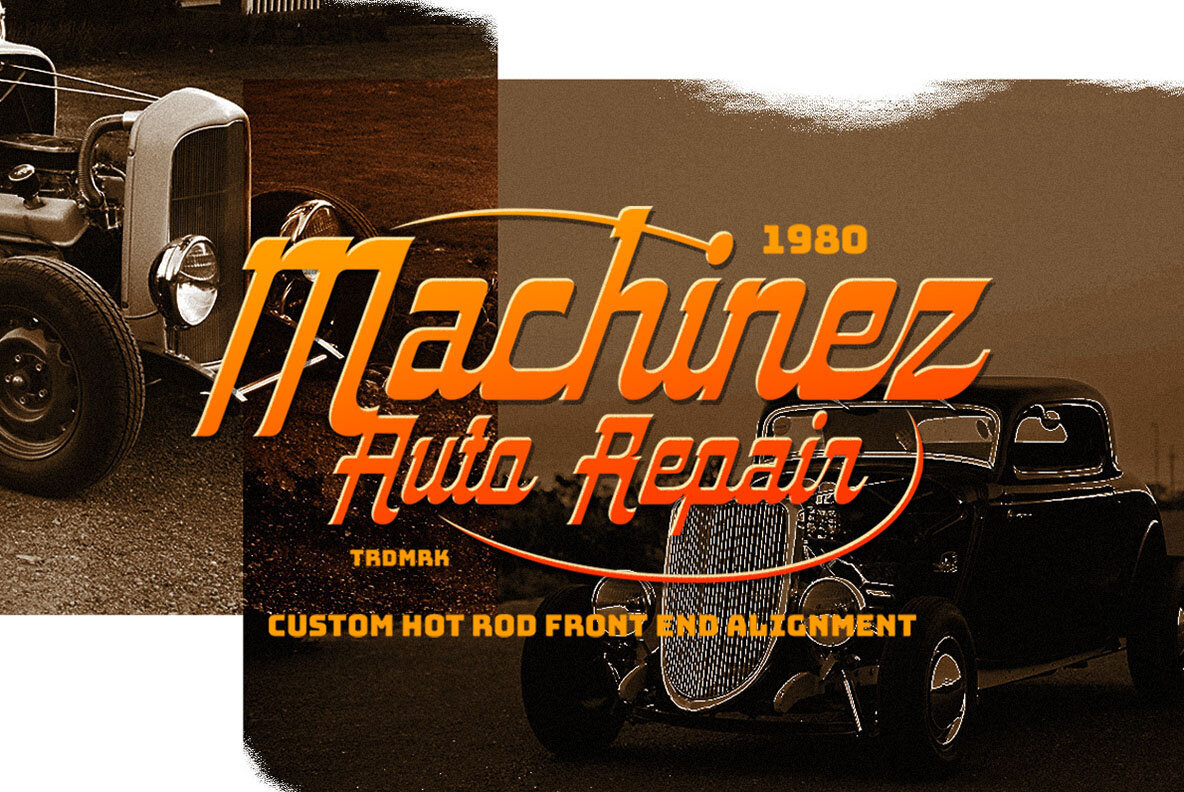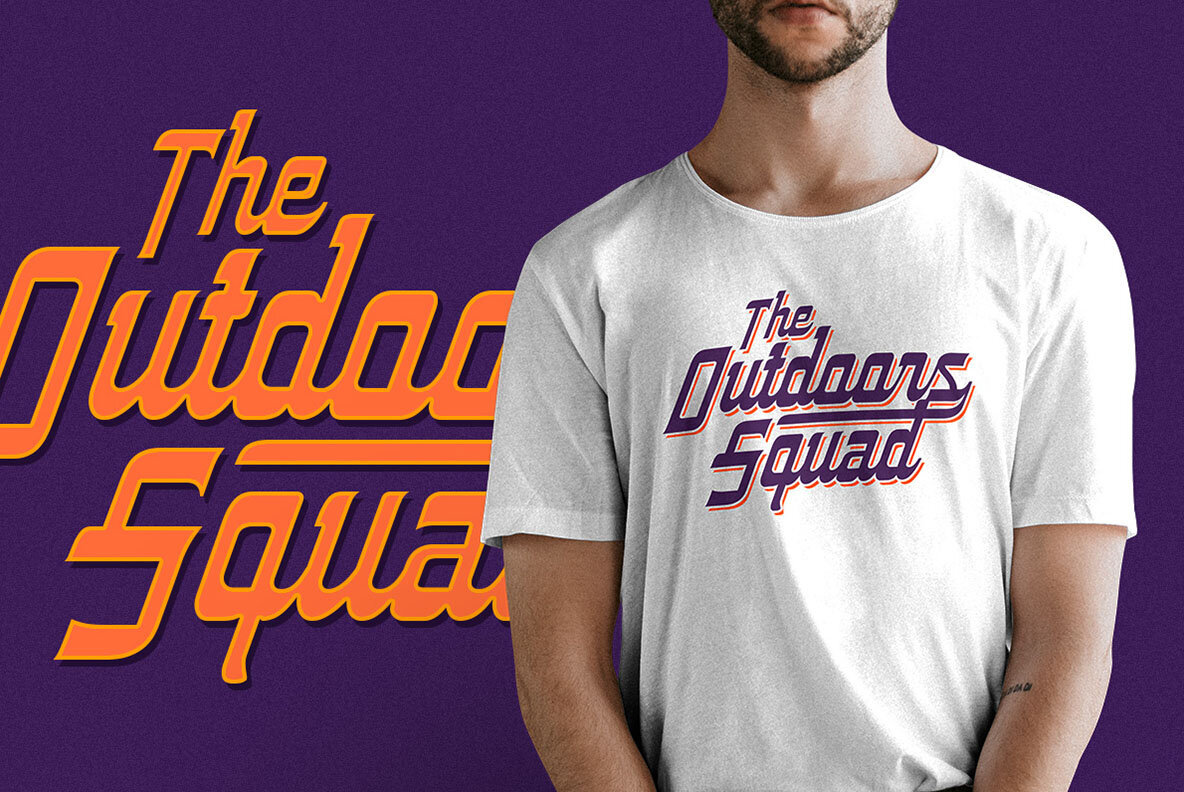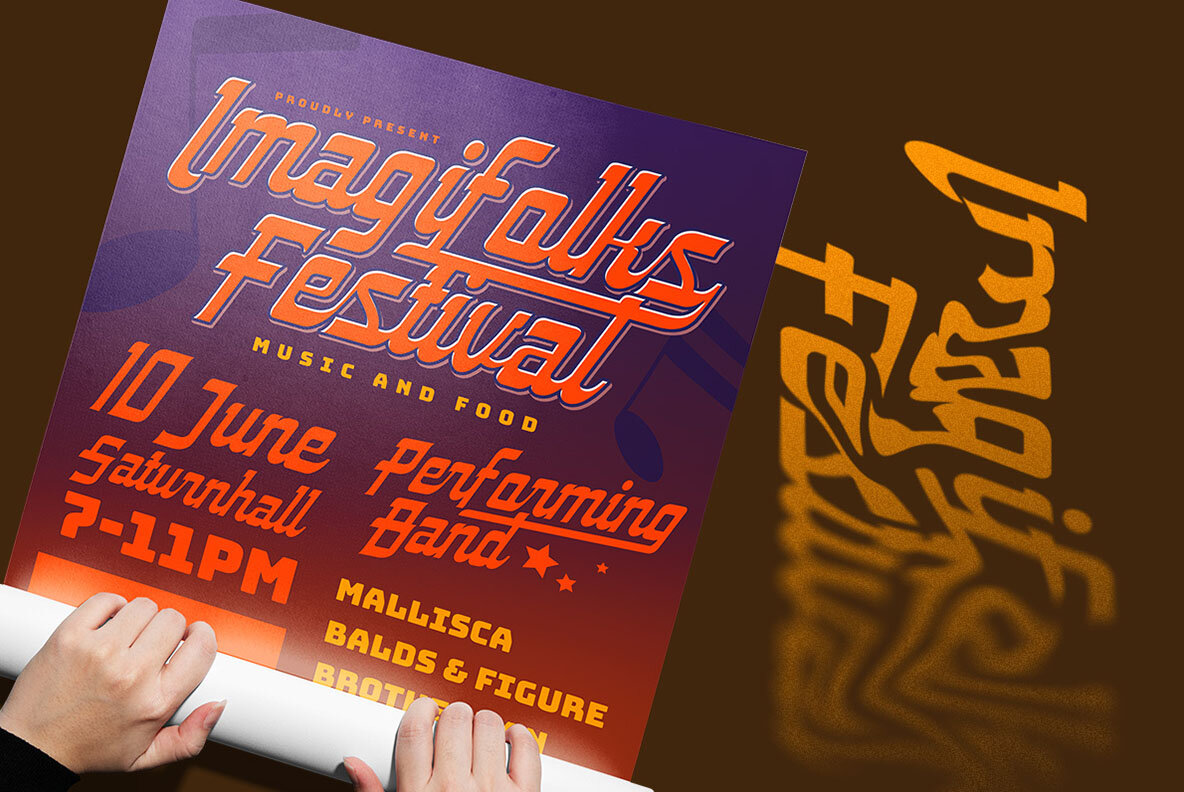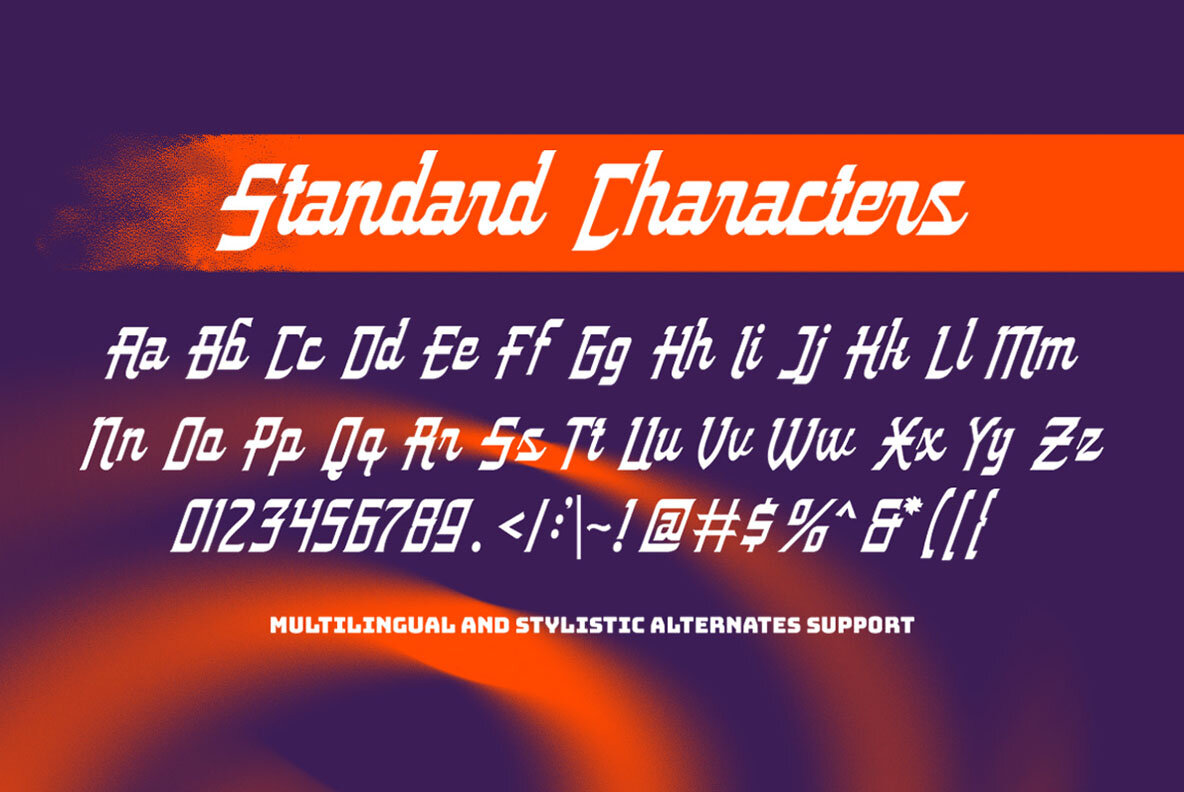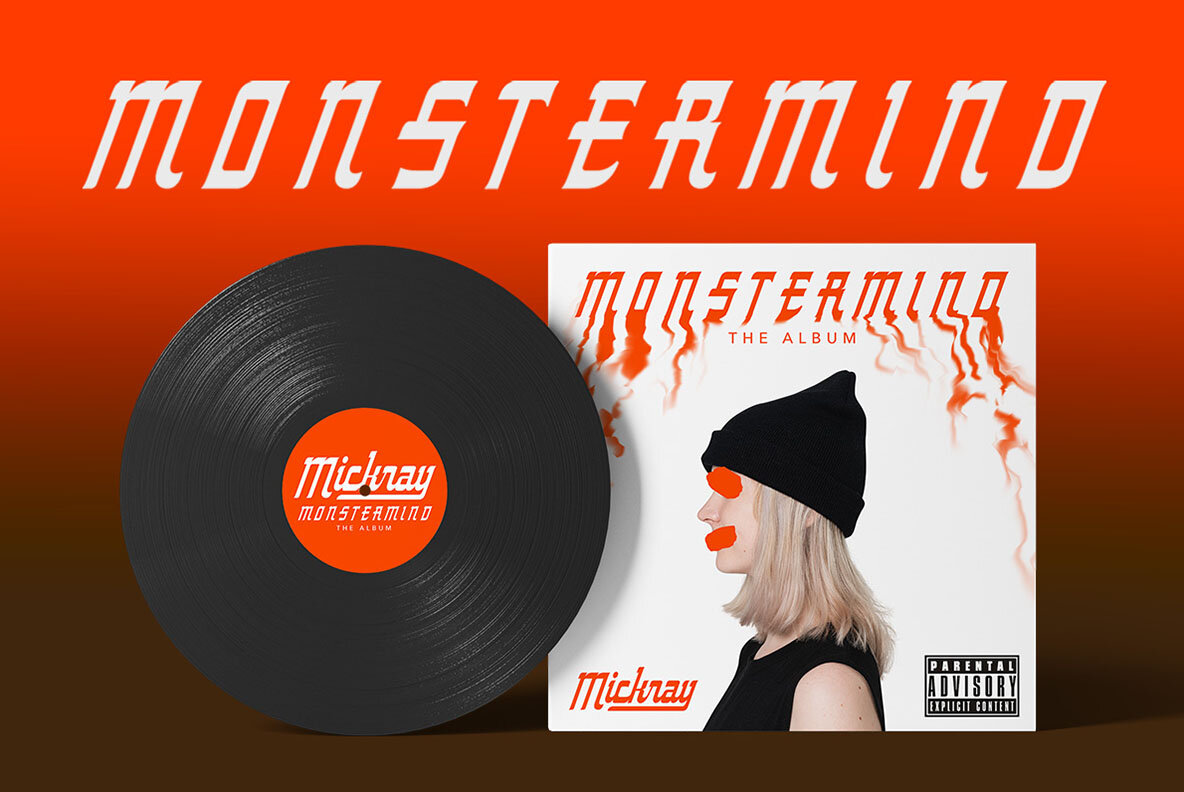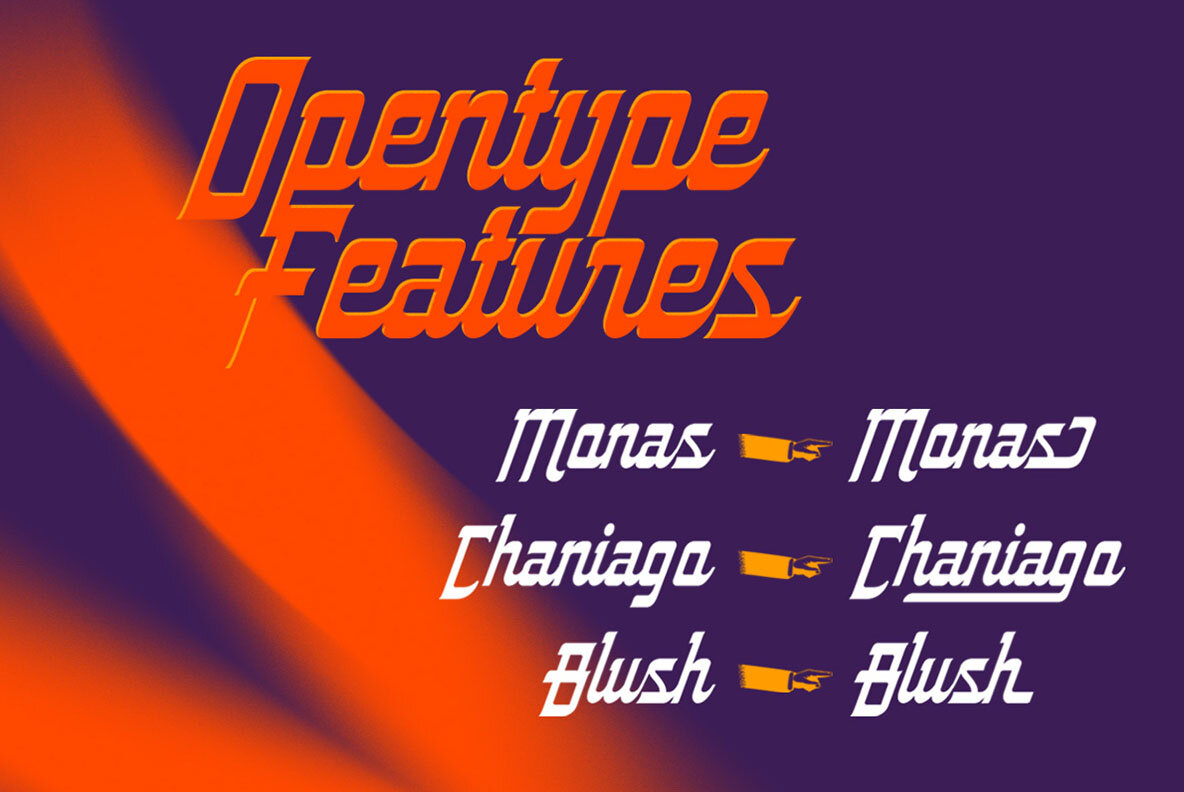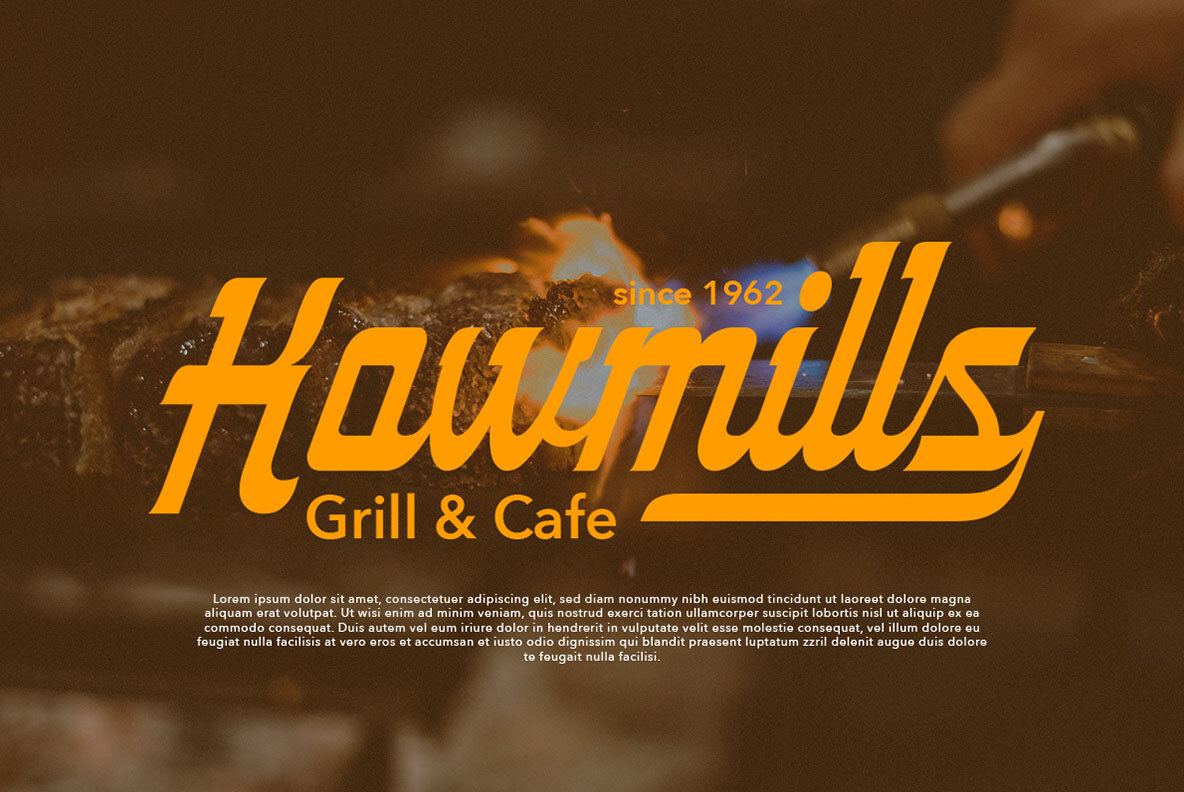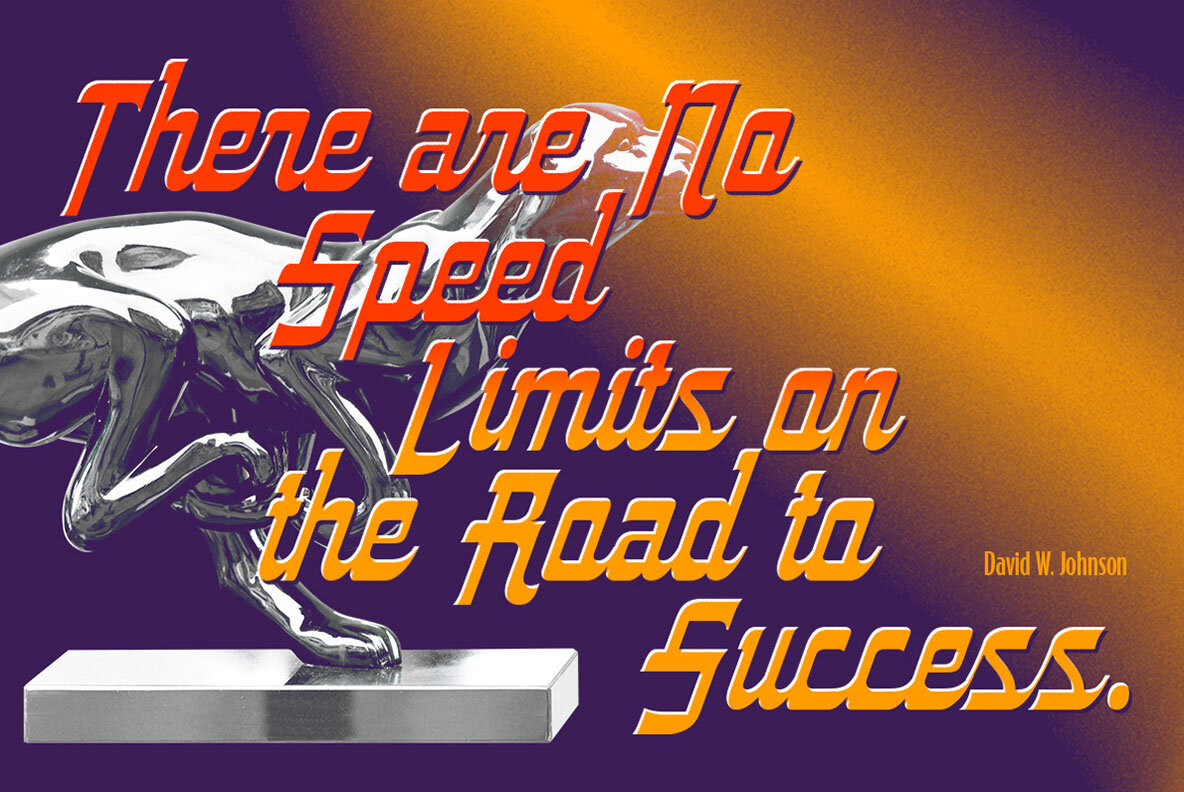
Borndland Font
Introducing Bornland, a dynamic font that embodies a sporty and urban street art aesthetic. With its bold and energetic script style, this font brings a sense of edgy flair to any design project. Perfect for sports-themed branding, apparel, posters, and urban-inspired designs, Bornland adds a vibrant and expressive touch to capture attention and create a visually captivating experience. Features: We highly recommend using a program that supports OpenType features and Glyphs panels like many of Adobe apps and Corel Draw, so you can see and access all Glyph variations.